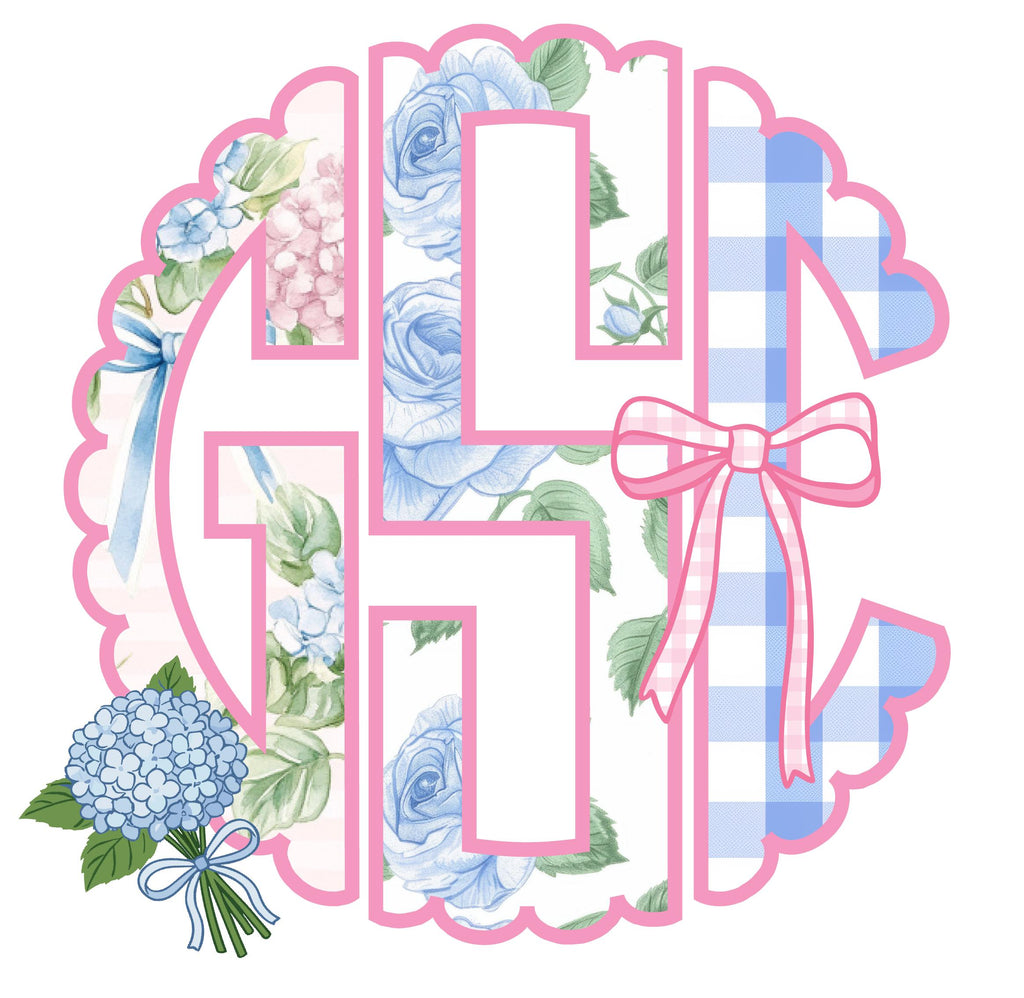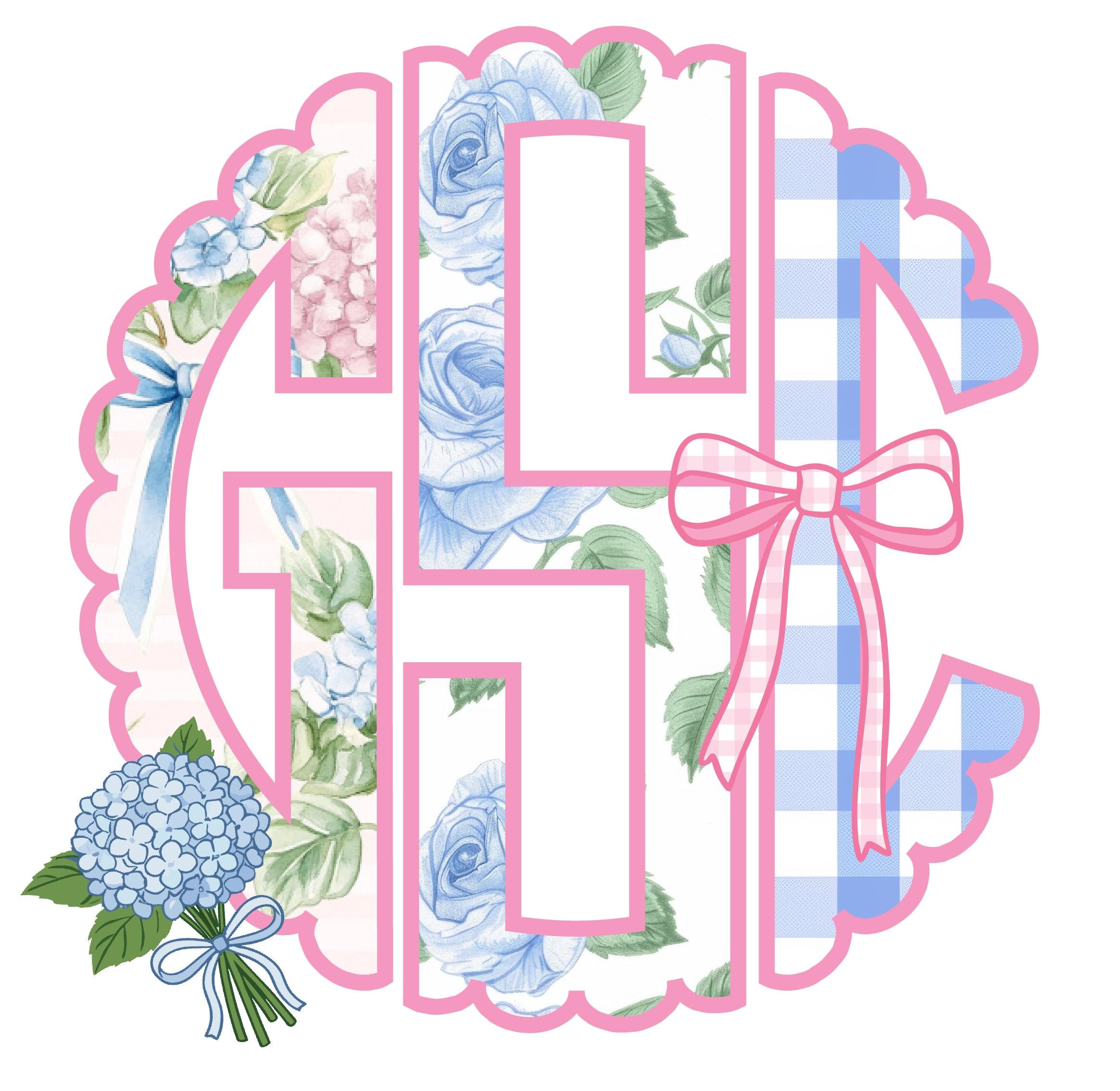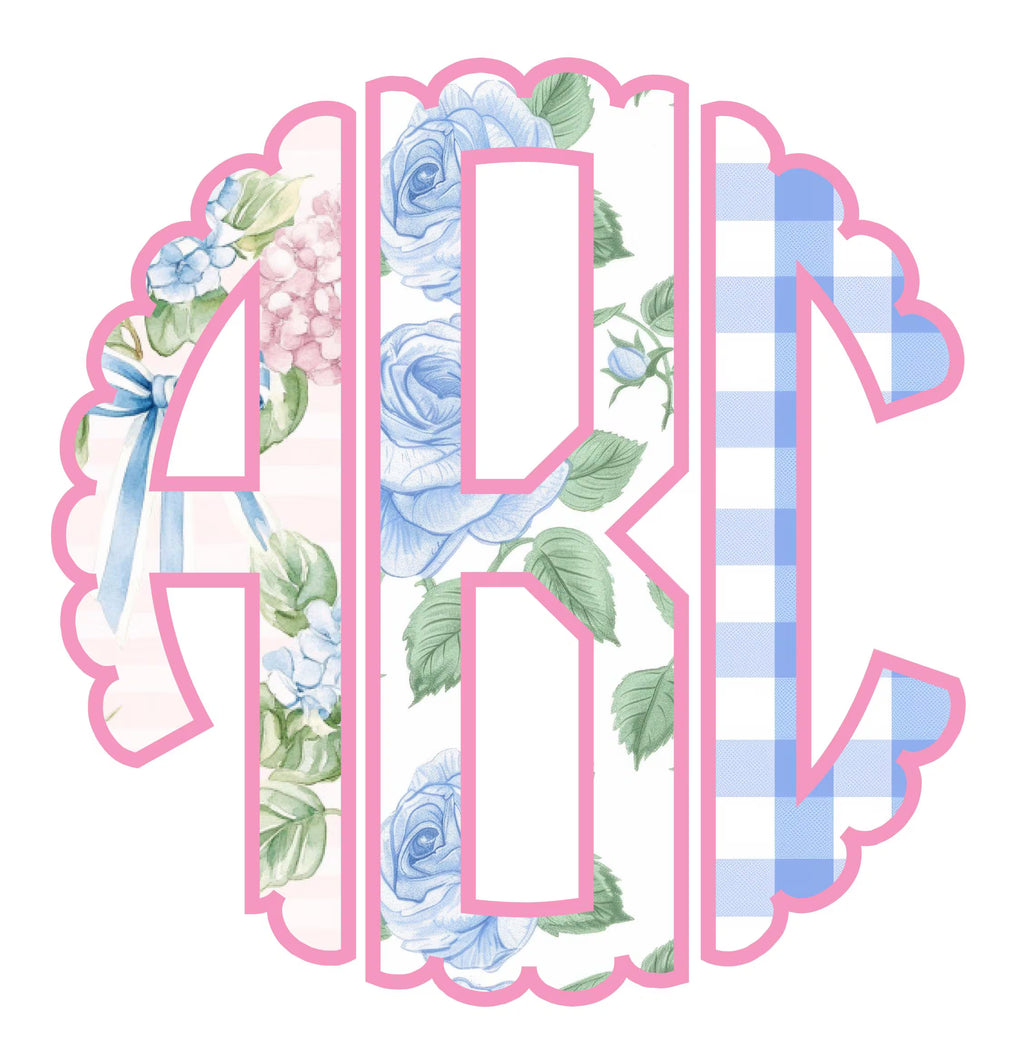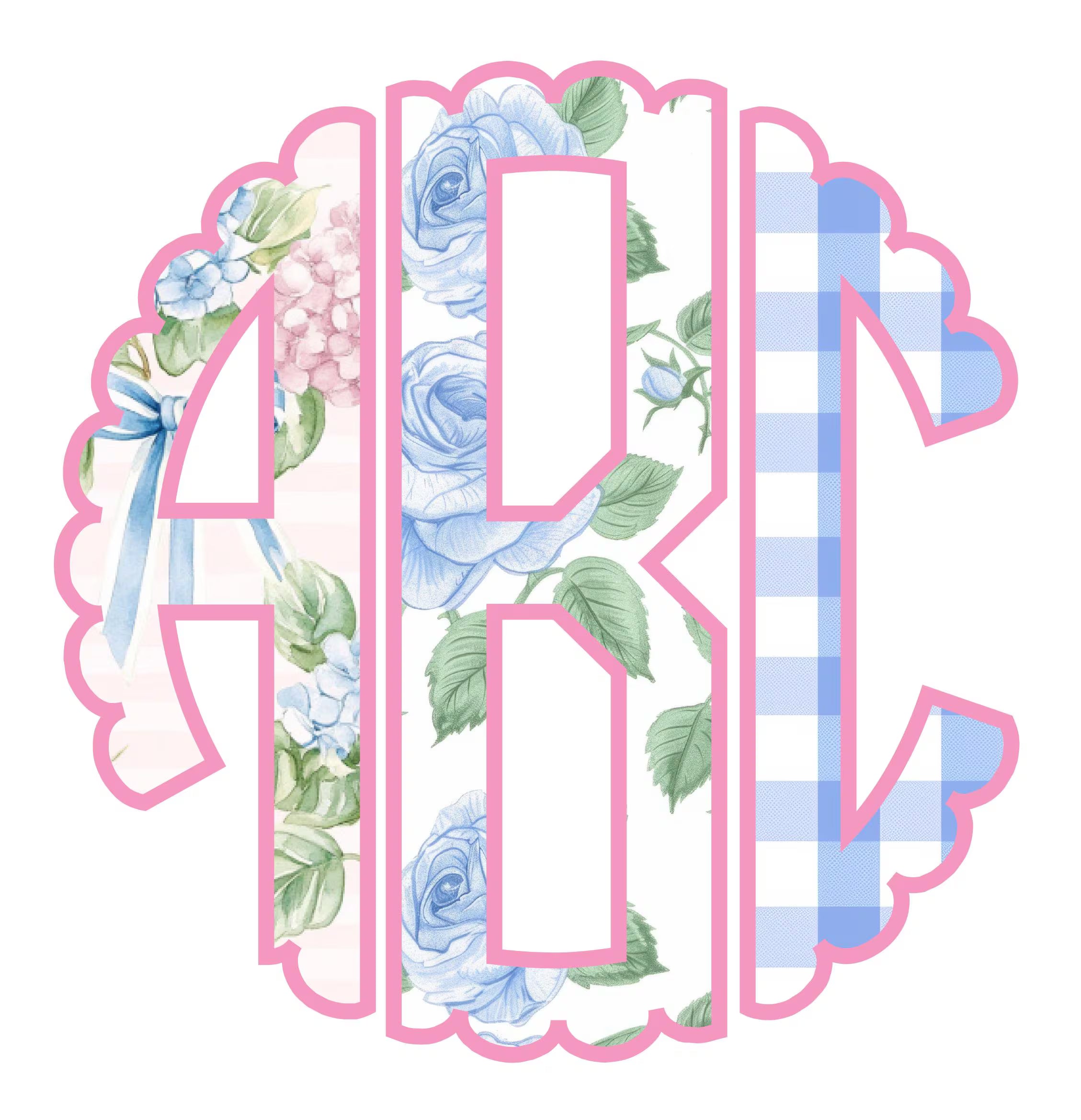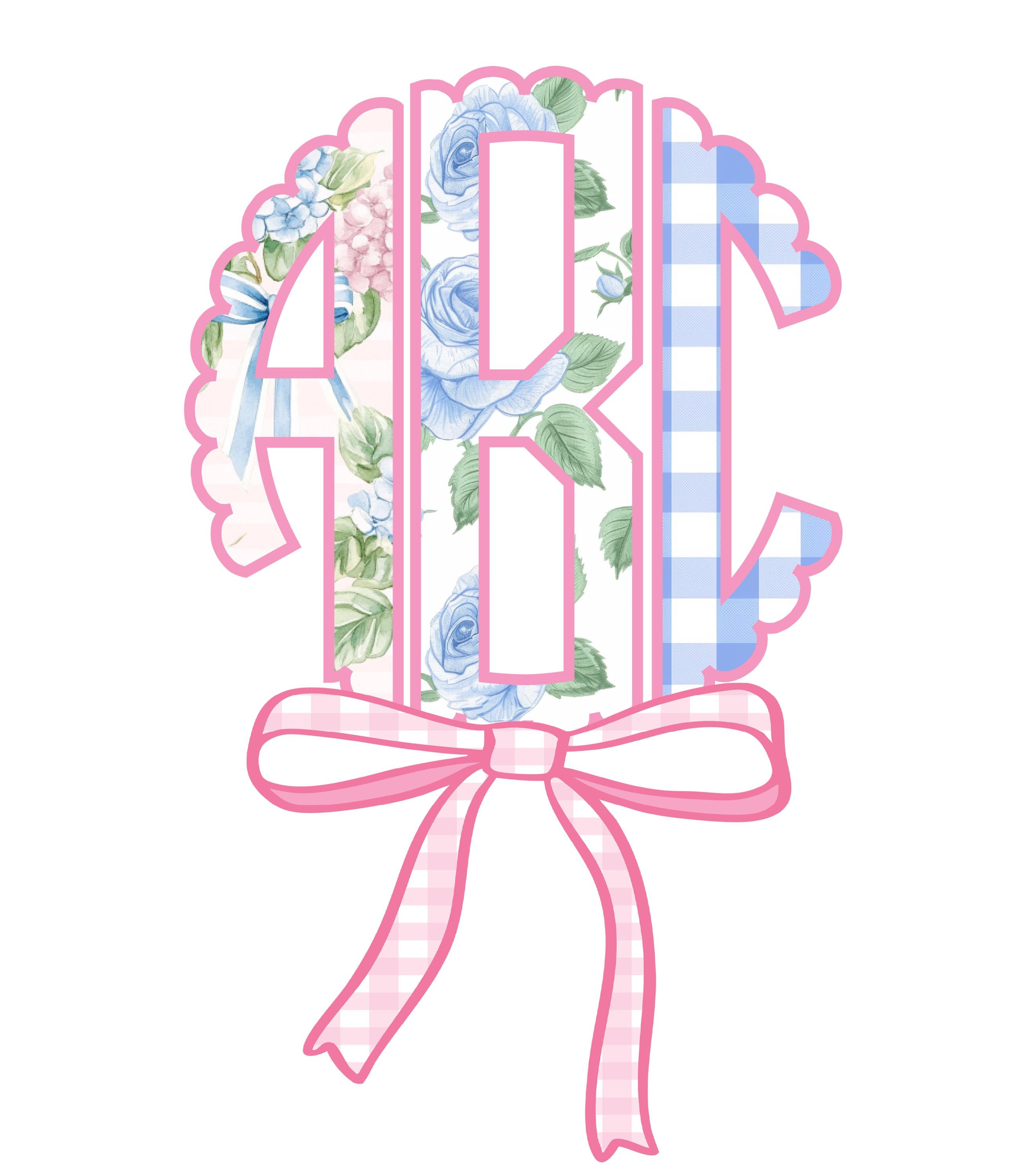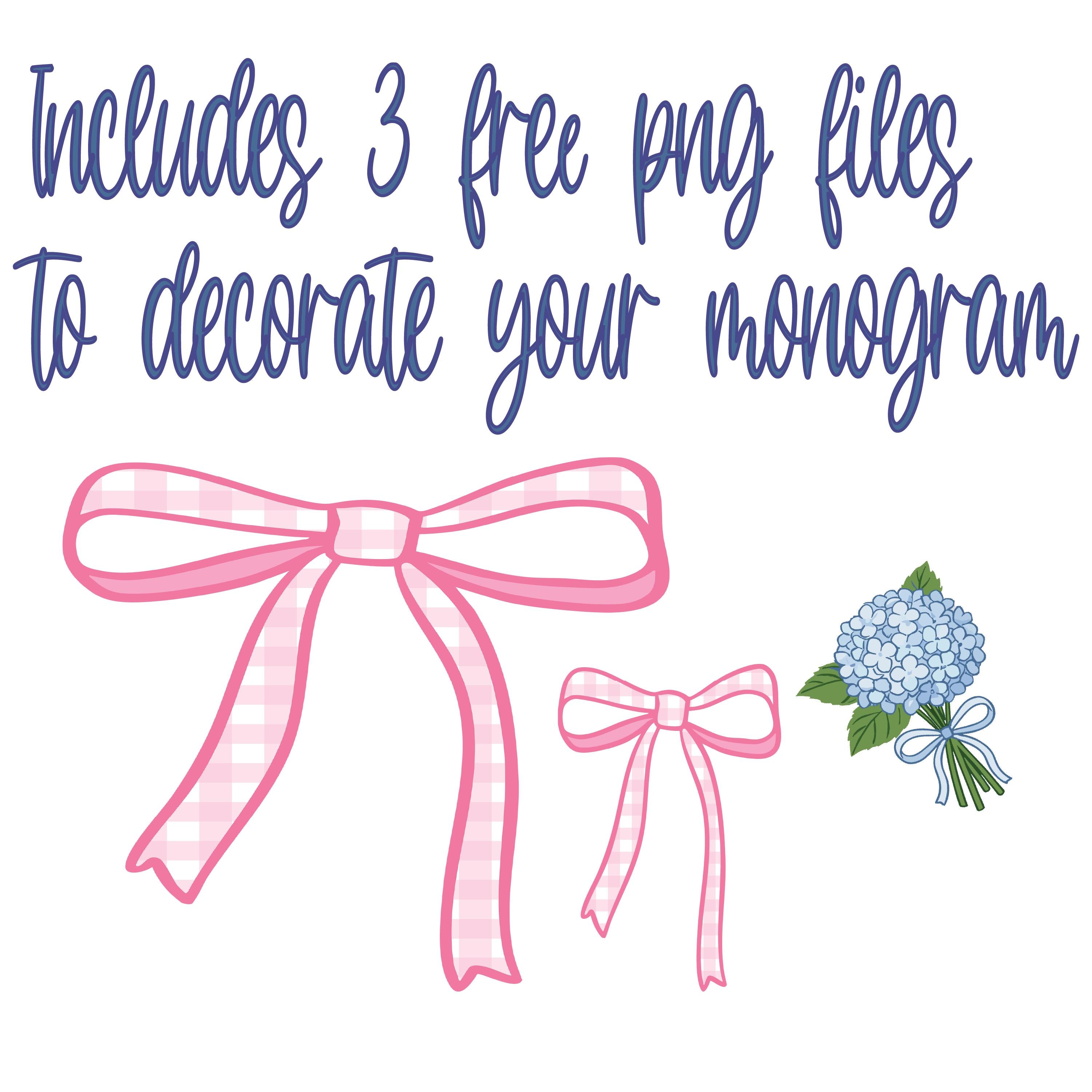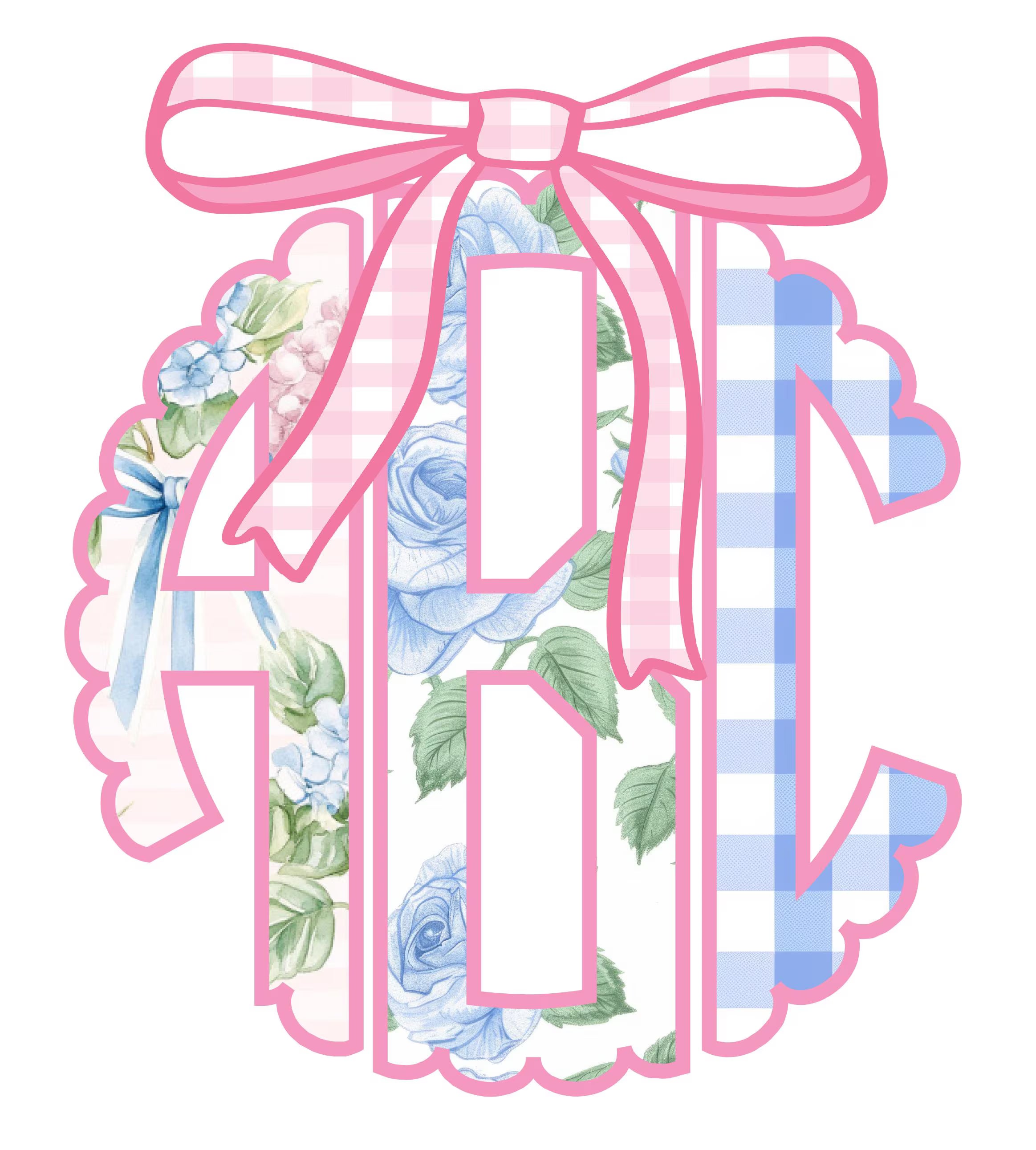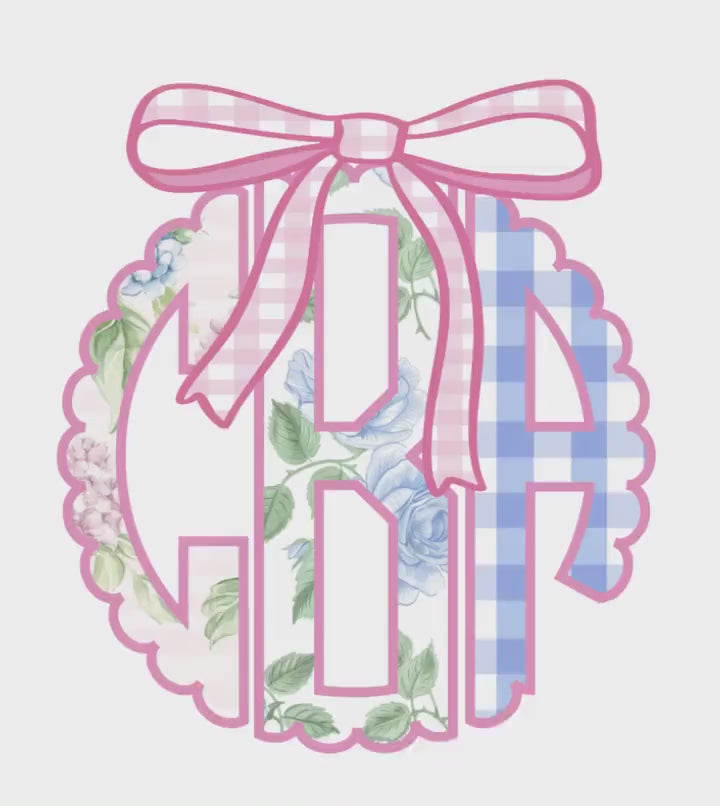
Spring Floral & Gingham Scallop Monogram PNG Font: Includes 76 Letters + 3 png extras
This hydrangea, roses, & gingham font Includes:
26 left letters (blush pink background pink & blue hydrangea bows pattern)
26 center letters (cream background blue roses pattern)
26 right letters (blue gingham),
+ 3 graphic pngs (wide gingham bow topper, smaller gingham bow letter decoration, hydrangea bouquet) to add to your font as you please!